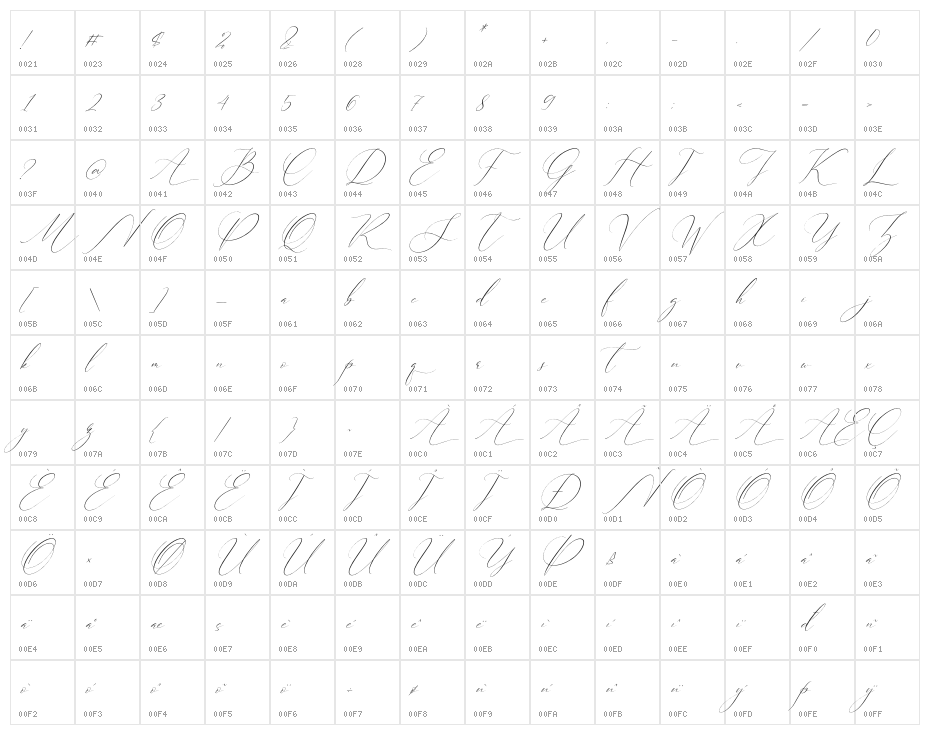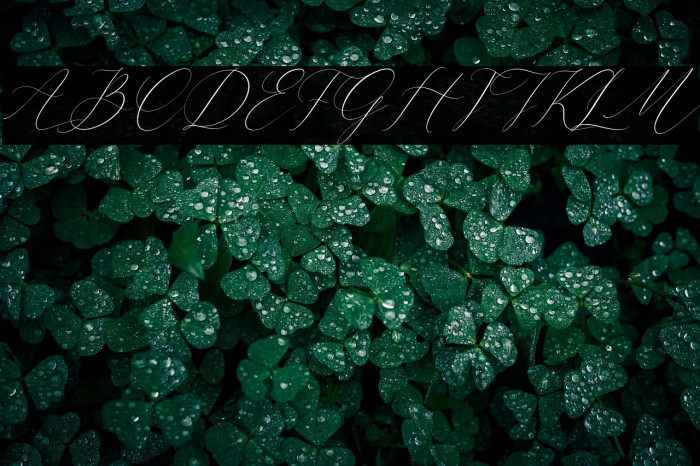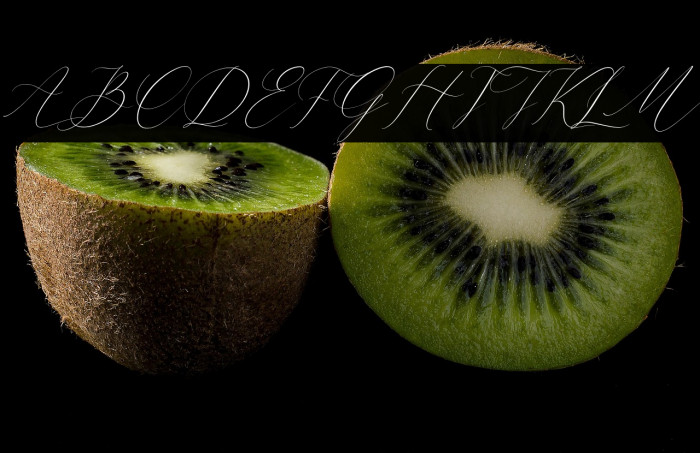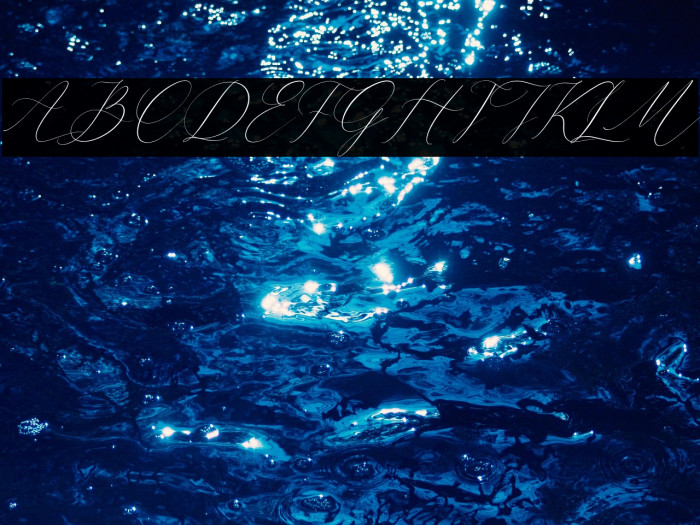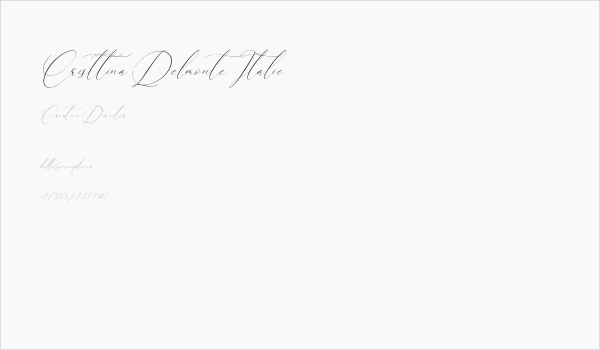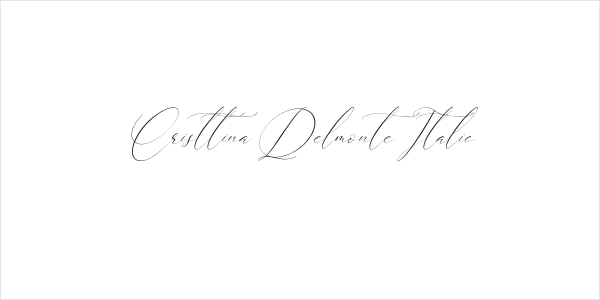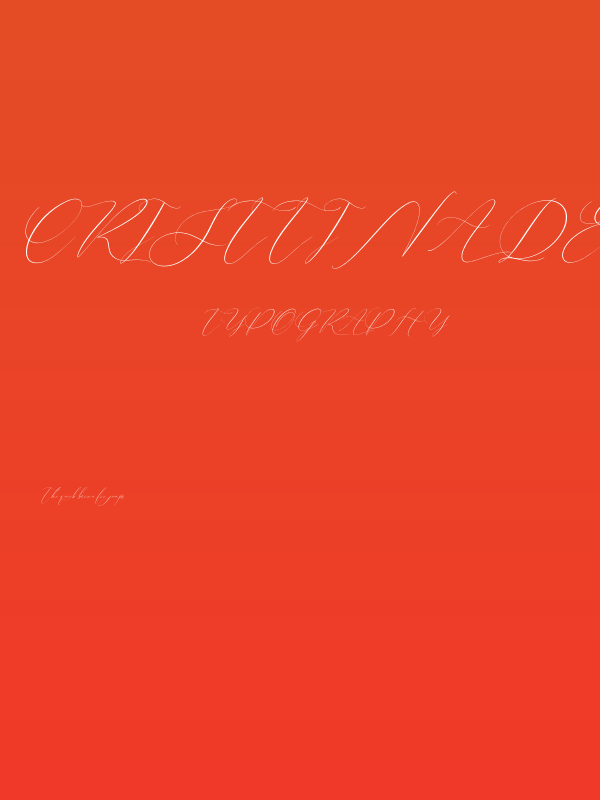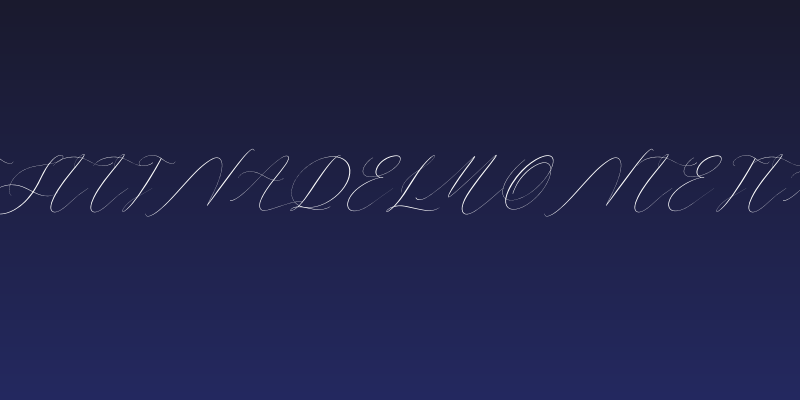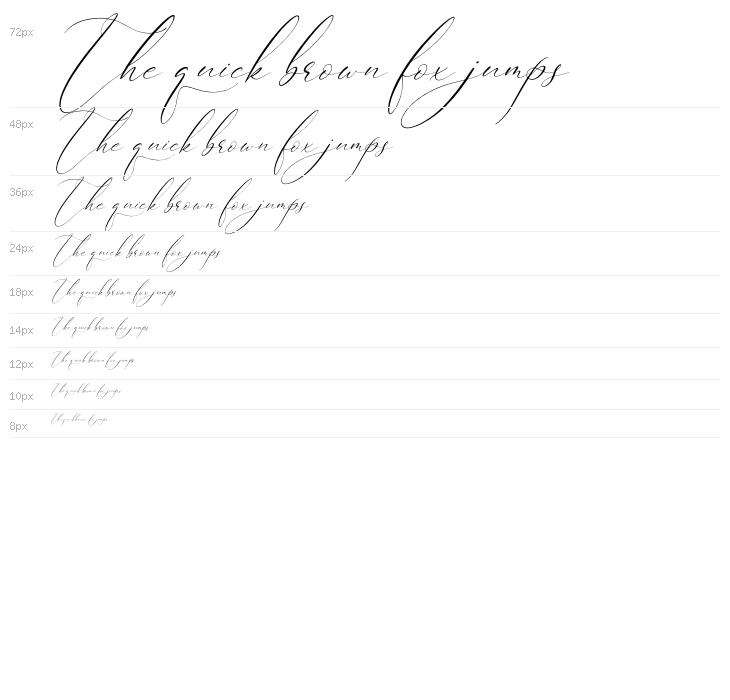
Cristtina Delmonte Italic Font
Cristtina Delmonte Italic Description
This elegant script font features a flowing, cursive style with delicate, elongated strokes and a graceful slant. The uppercase letters are characterized by their sweeping curves and loops, while the lowercase letters maintain a consistent fluidity and connectedness. The numerals are stylishly integrated into the script, maintaining the overall aesthetic. Special characters are designed with the same attention to detail, ensuring a cohesive look across all glyphs. The font's thin lines and high contrast between thick and thin strokes give it a refined and sophisticated appearance, making it ideal for formal and decorative applications.